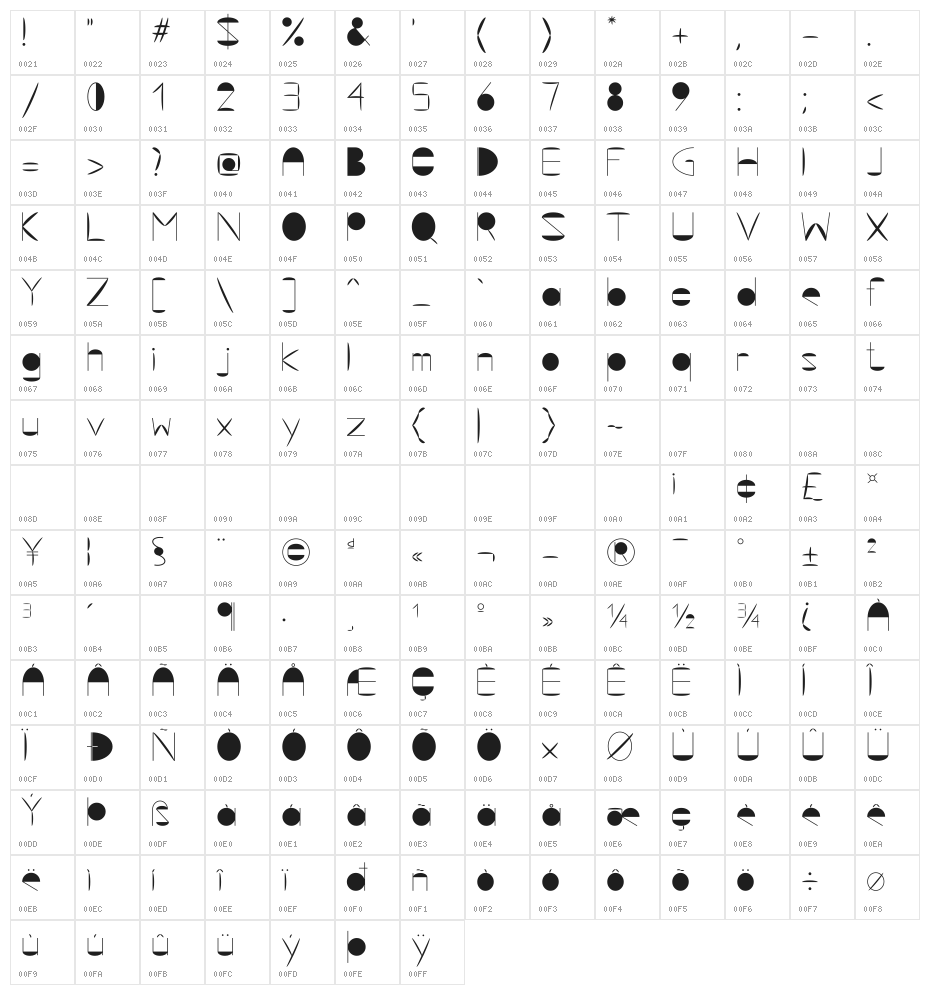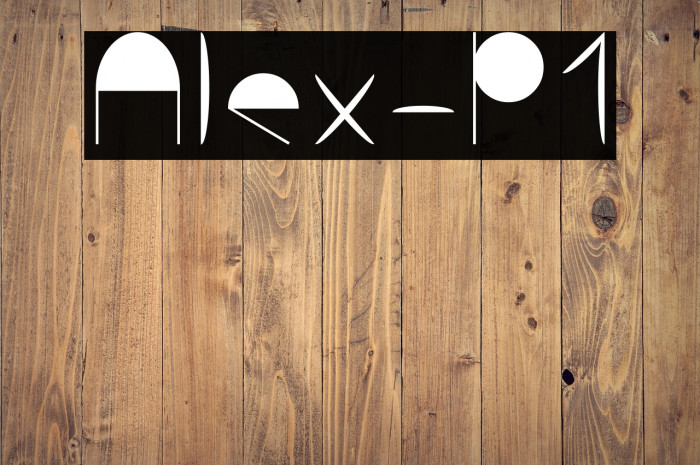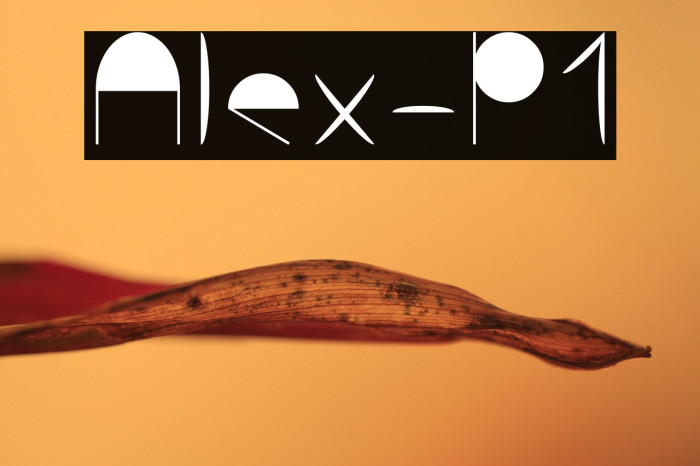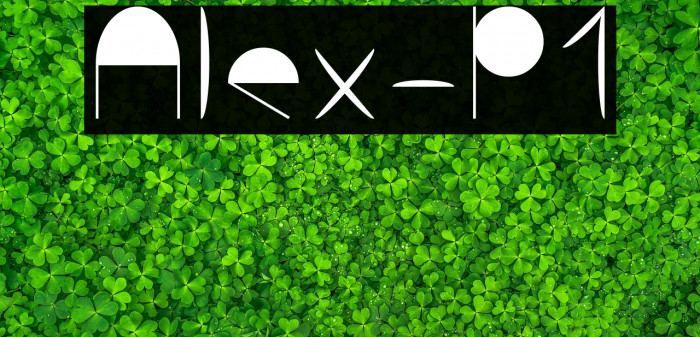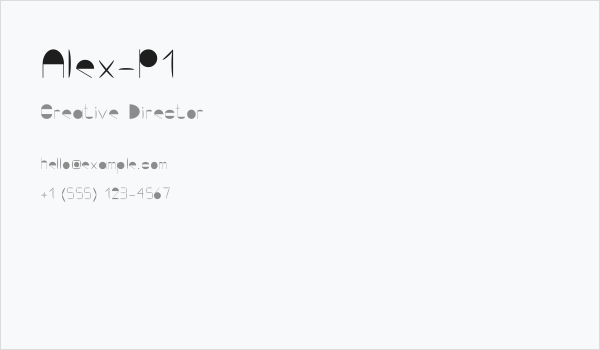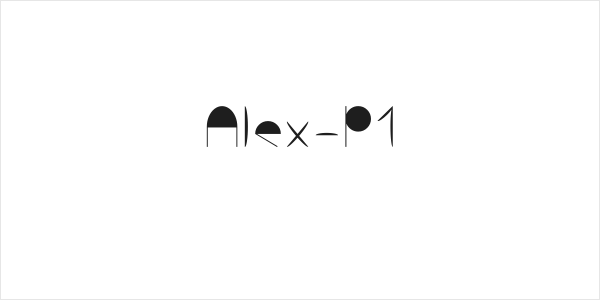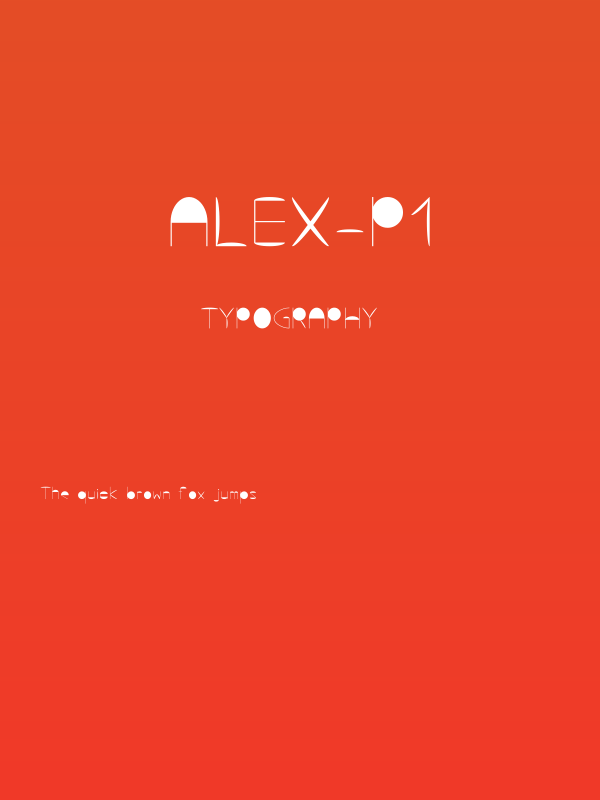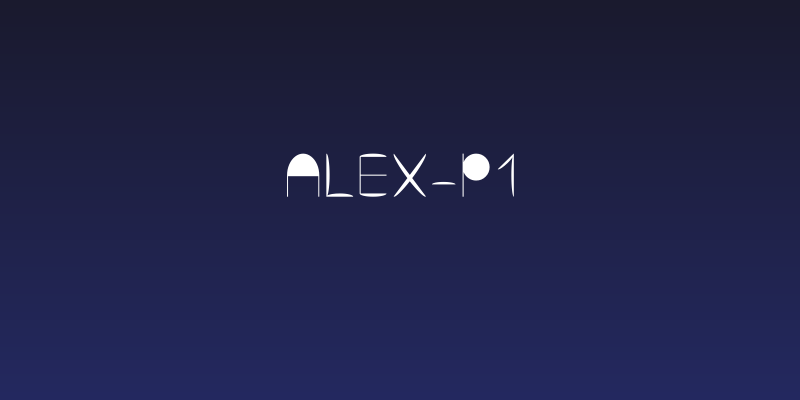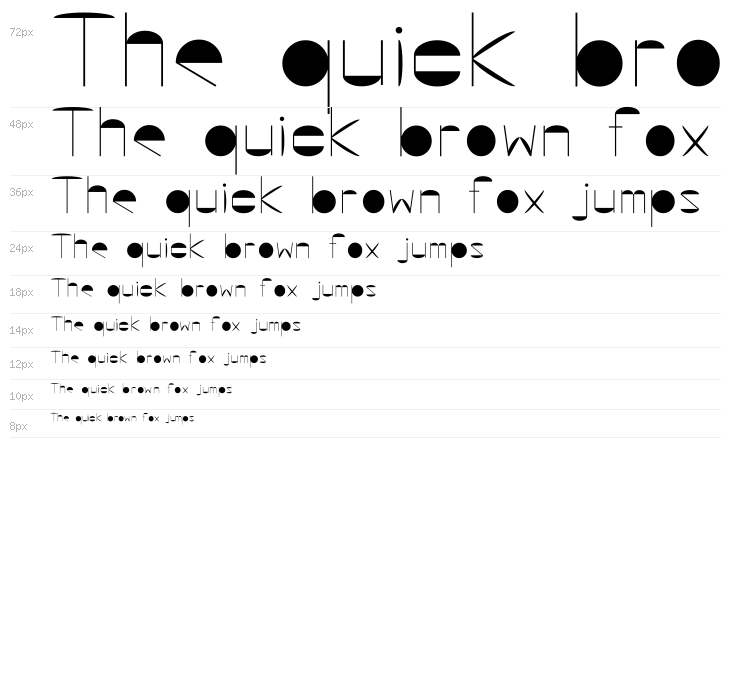
Alex-P1 Font
Alex-P1 Description
This font features a unique blend of geometric and modern design elements, characterized by its distinct use of negative space and sharp angles. The uppercase letters exhibit a bold and striking appearance, with some characters like 'A' and 'B' having a half-filled style that adds a sense of dynamism. The lowercase letters maintain a consistent geometric form, offering a sleek and contemporary look. Numbers are similarly styled, with a mix of solid and outlined shapes that create visual interest. The special characters are designed to complement the overall aesthetic, maintaining the font's modern and artistic vibe.
| Use Case | Logos, Headlines |
| Proposed Projects | Ideal for branding, logo design, and modern advertising campaigns where a bold statement is needed. |